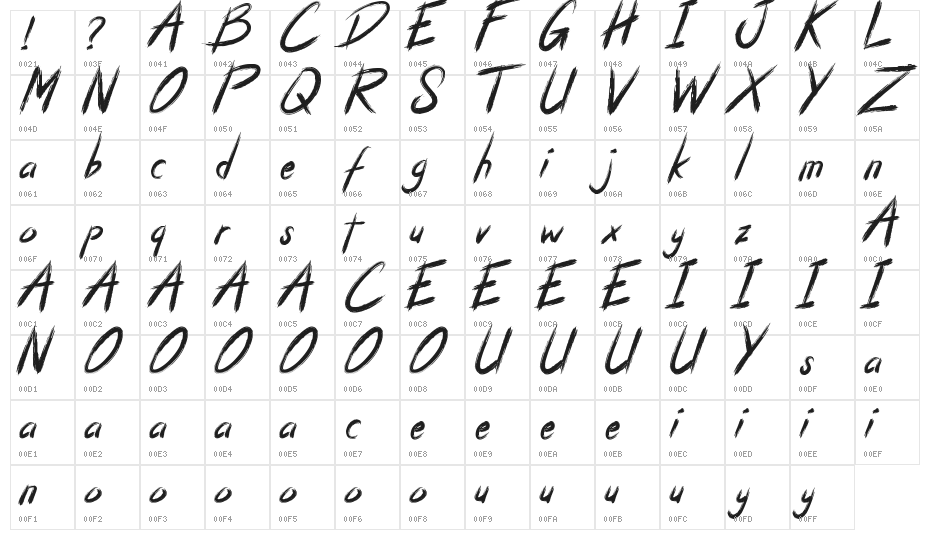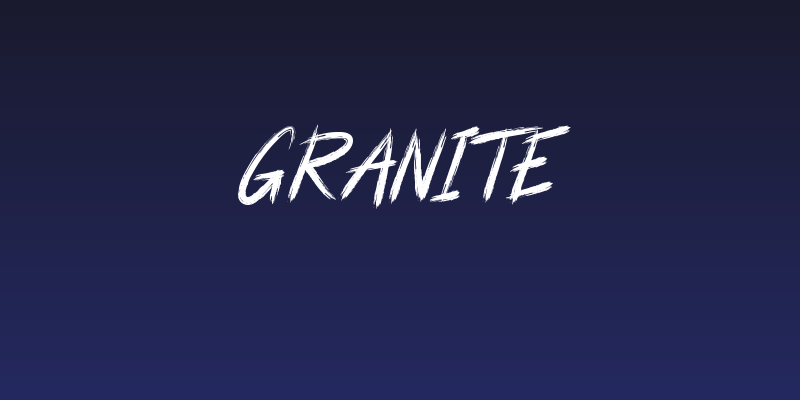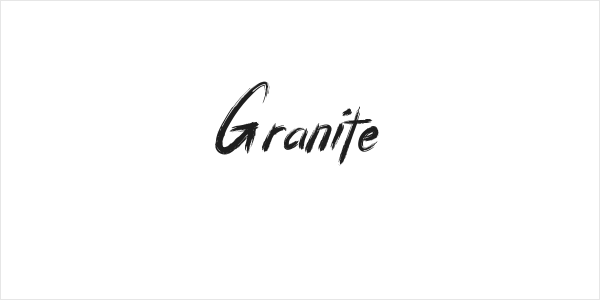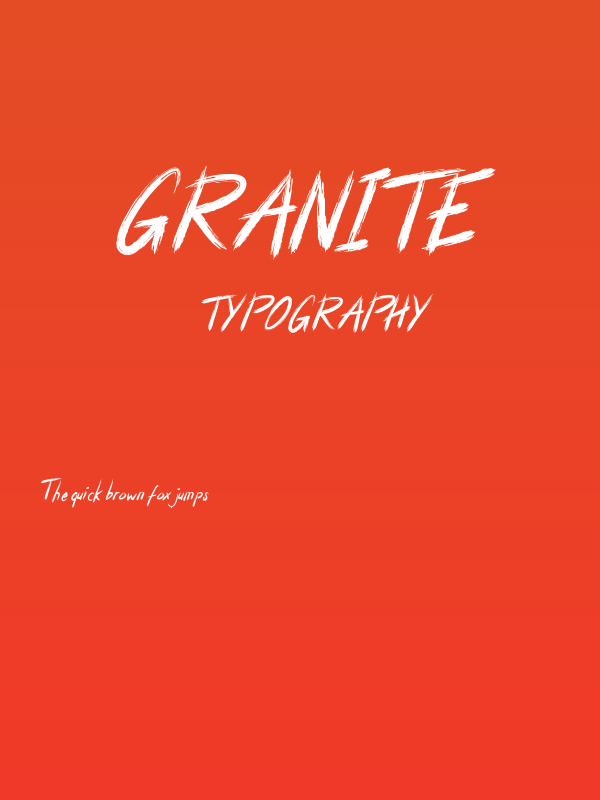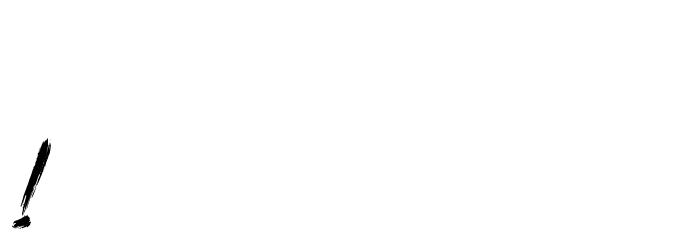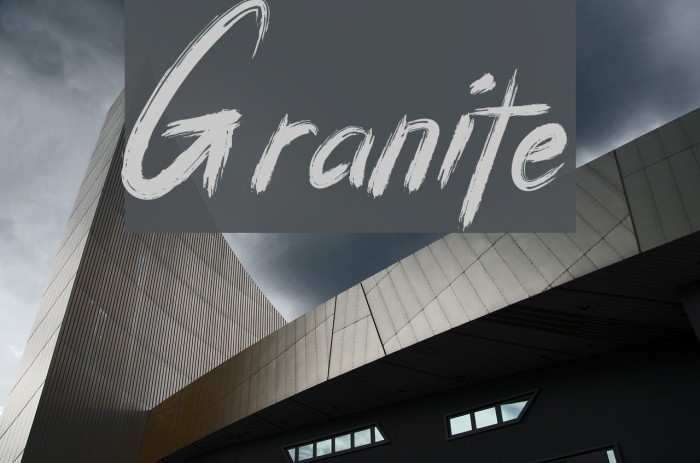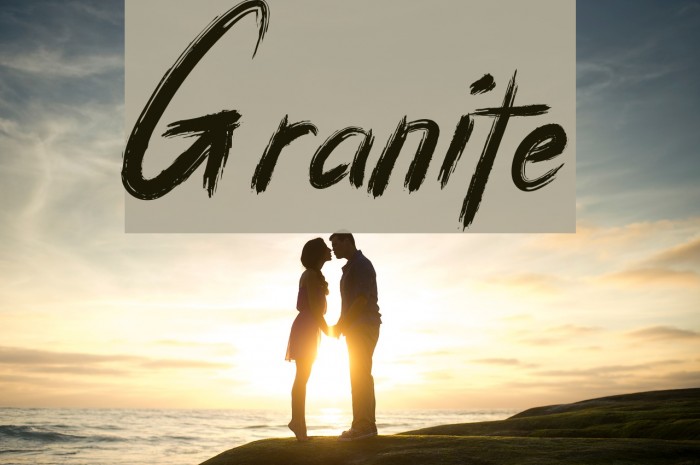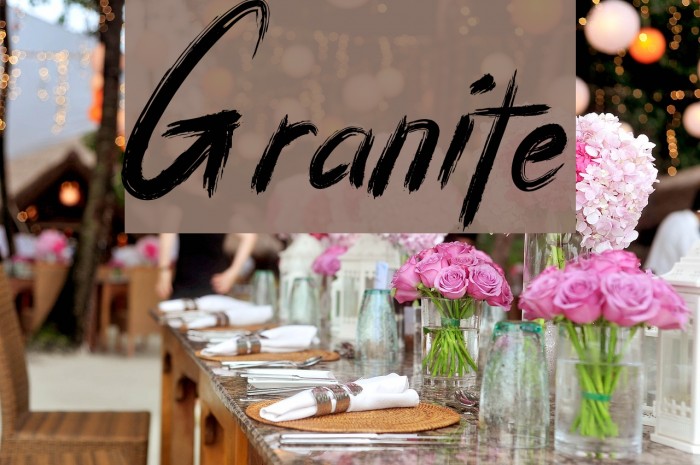
Granite Font
Granite Description
This font exhibits a dynamic and energetic style, characterized by its brush-like strokes that convey a sense of movement and intensity. The letters are crafted with irregular edges, giving them a raw and expressive appearance. The uppercase and lowercase characters maintain a consistent style, with a slight slant that enhances the font's lively nature. The strokes vary in thickness, adding to the overall impression of spontaneity and artistic flair. This font is particularly suited for projects that require a bold and impactful visual statement, such as posters, album covers, or branding materials that aim to capture attention and convey a sense of creativity and individuality.
| Proposed Projects | Ideal for posters, album covers, branding, and any project needing a bold visual impact. |